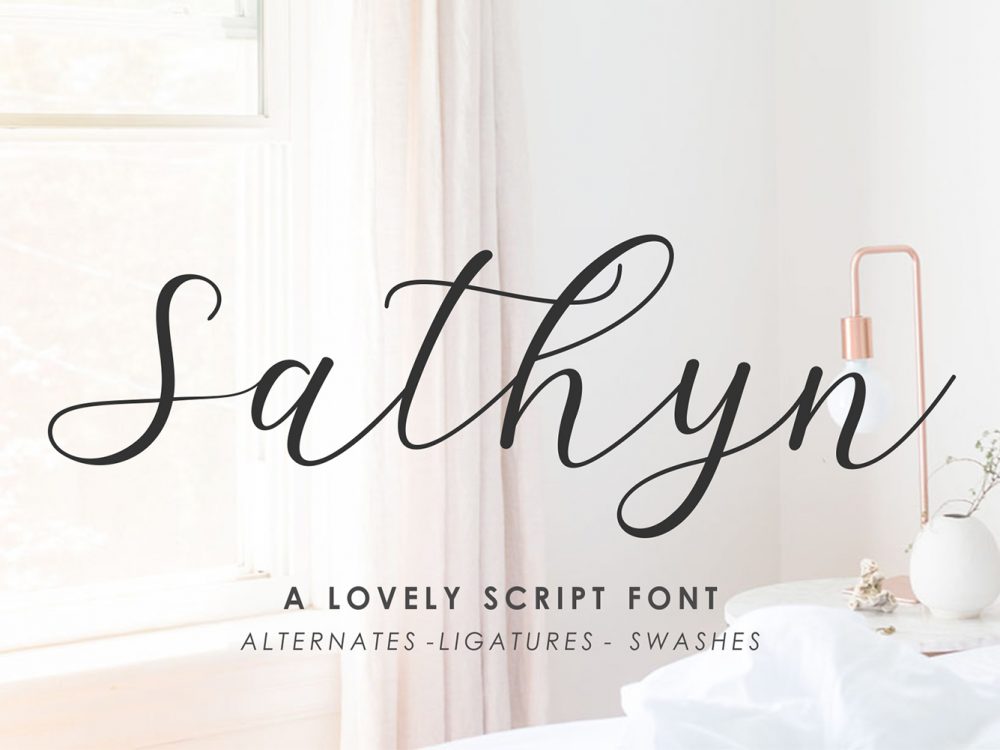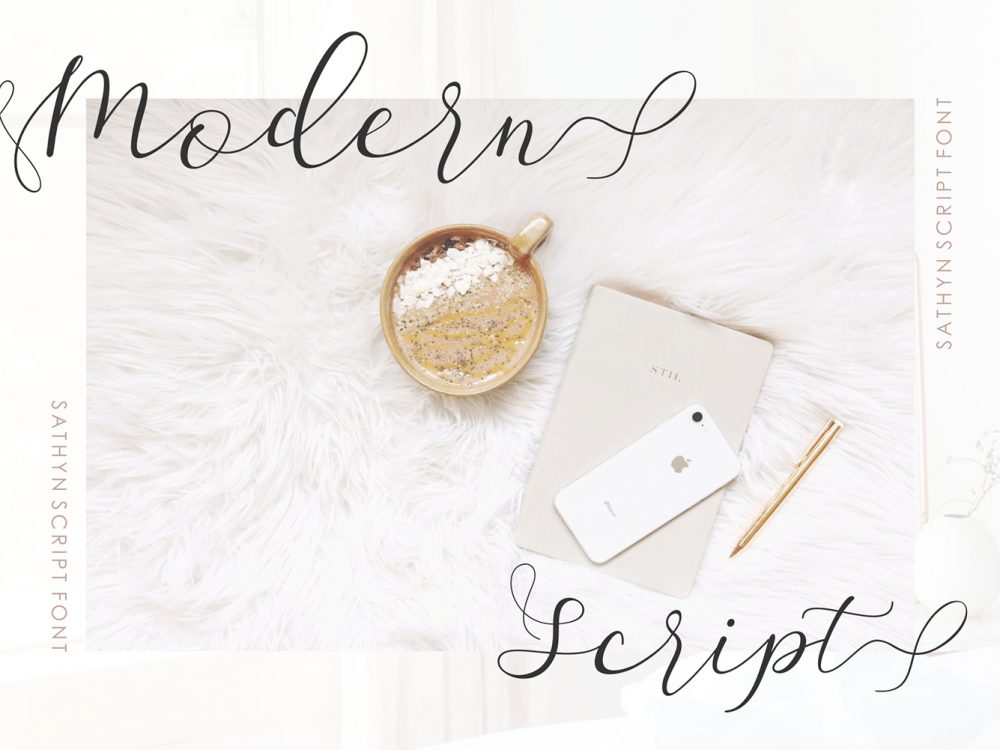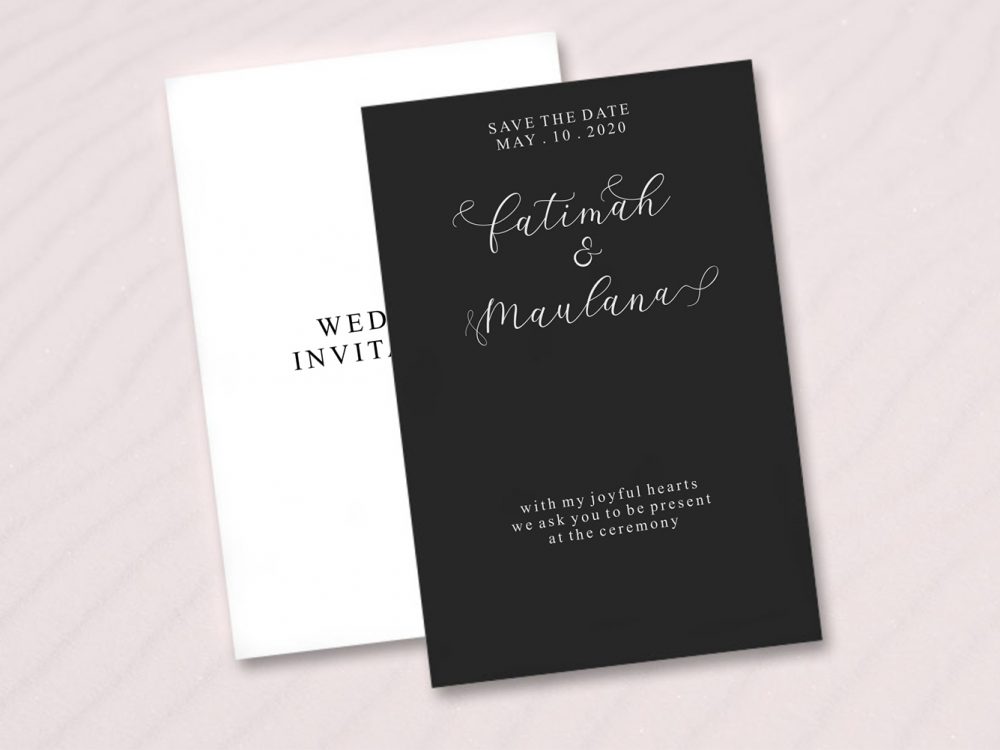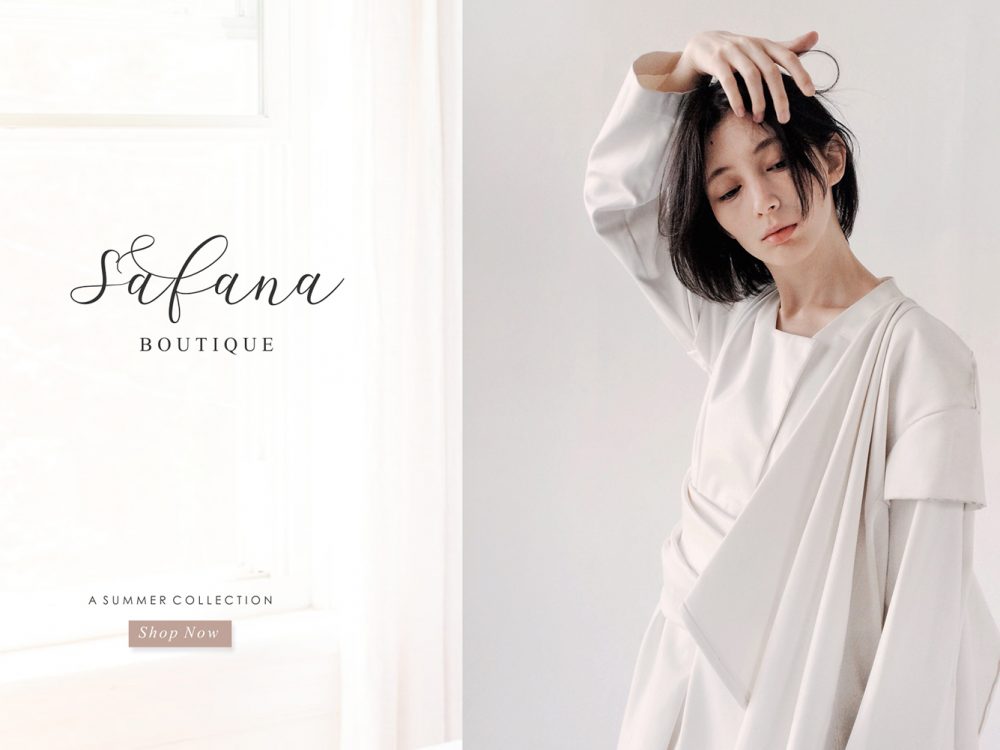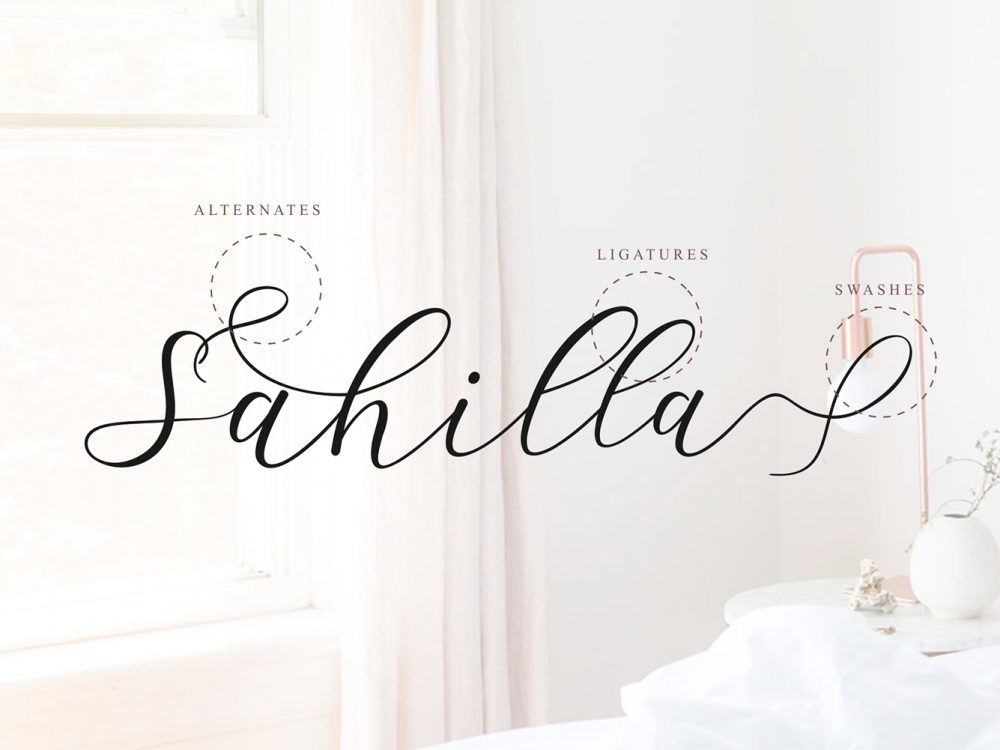
Sathyn Free Font
Sathyn Free Font is an interesting handwritten typeface with a sophisticated feel that stands out among others for its elegant and modern style. This font is very suitable for your various design projects that require a quality script font. You can use this font to create memorable posters, wedding invitations, greeting cards, branding, flyers, t-shirt and pillow prints, and more. Improve the quality and increase the popularity of your design projects by using this font. If you like it don’t forget to check out the full version.